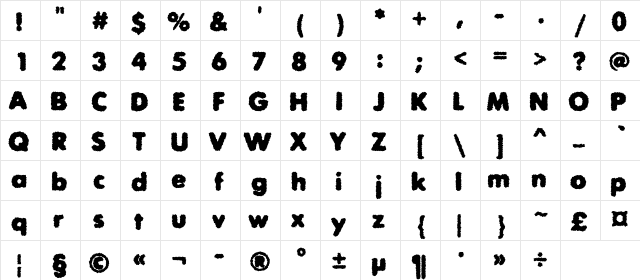
ExposureCThreeRough Regular
Design Context for ExposureCThreeRough Typeface
ExposureCThreeRough embraces imperfection — its rough, textured character adds raw authenticity to designs that want to feel lived-in and unconventional.
Suited to punk-influenced zines, underground music branding, streetwear, and raw, anti-corporate design.
Pro Tip: Pair ExposureCThreeRough with intentionally raw or lo-fi design elements. Fighting against it with overly polished surroundings will undermine its personality.